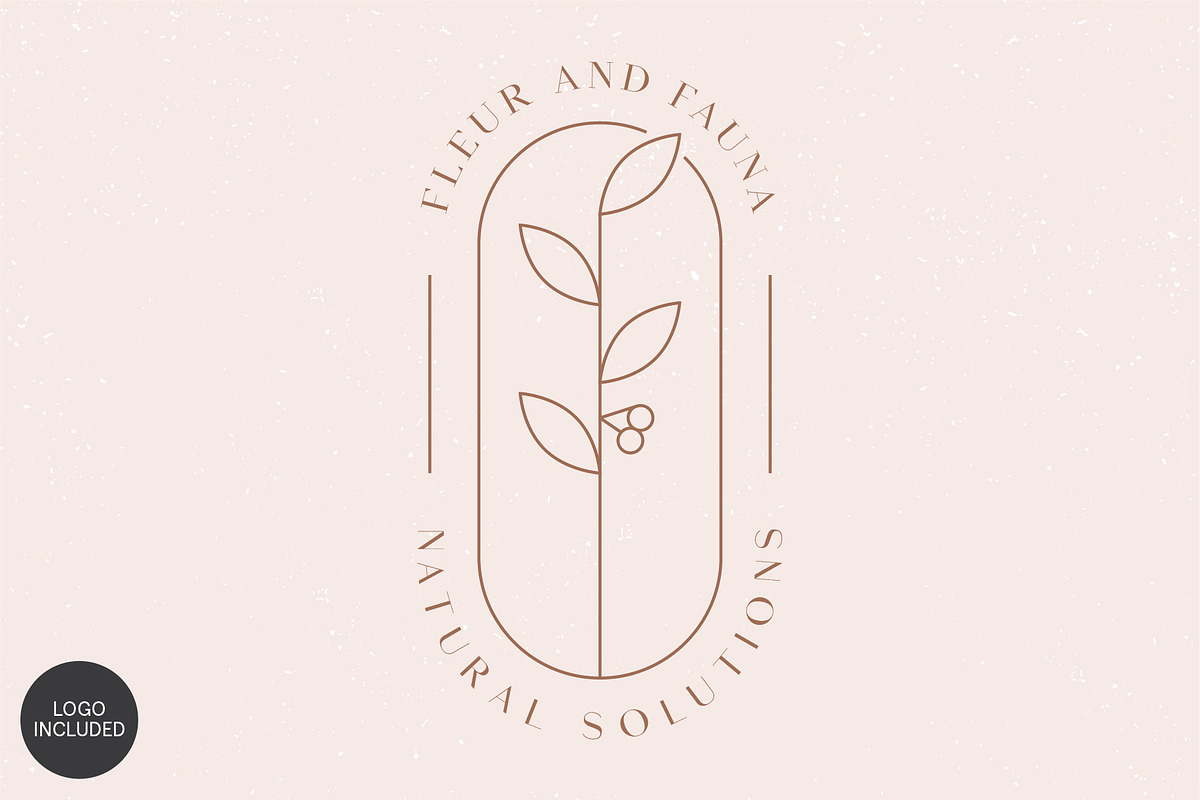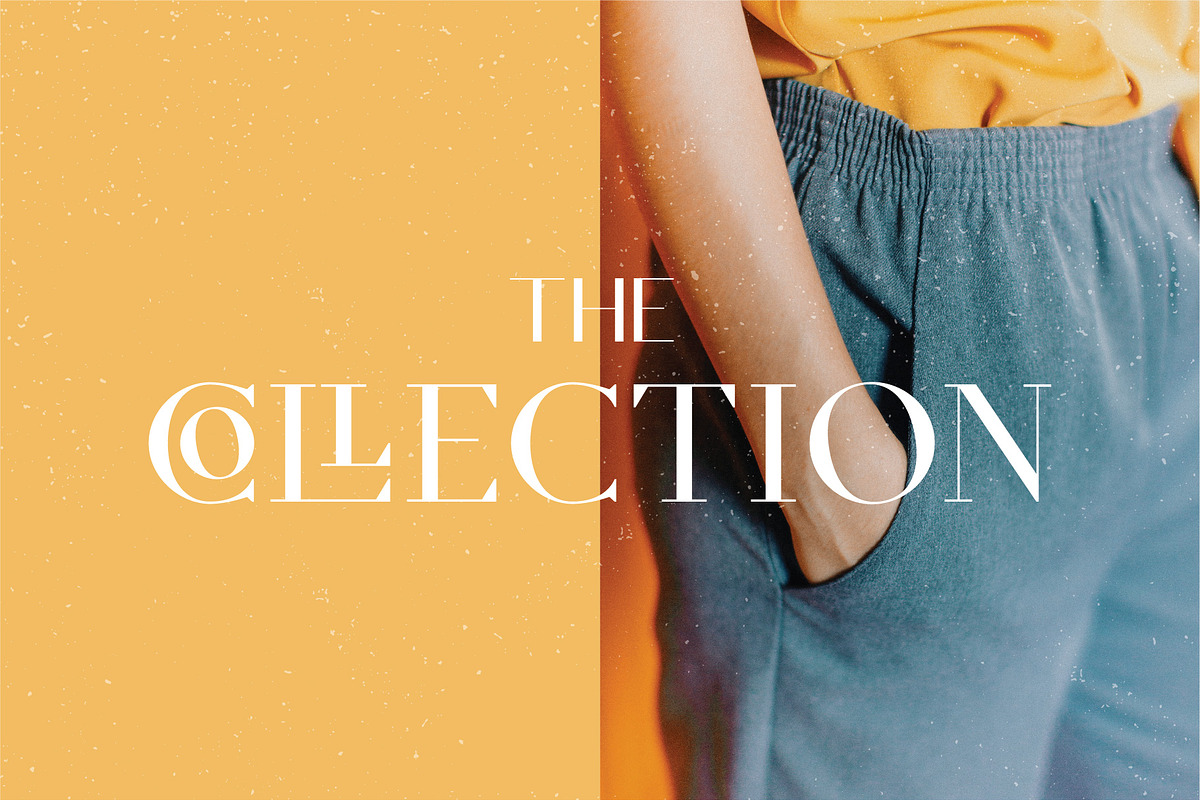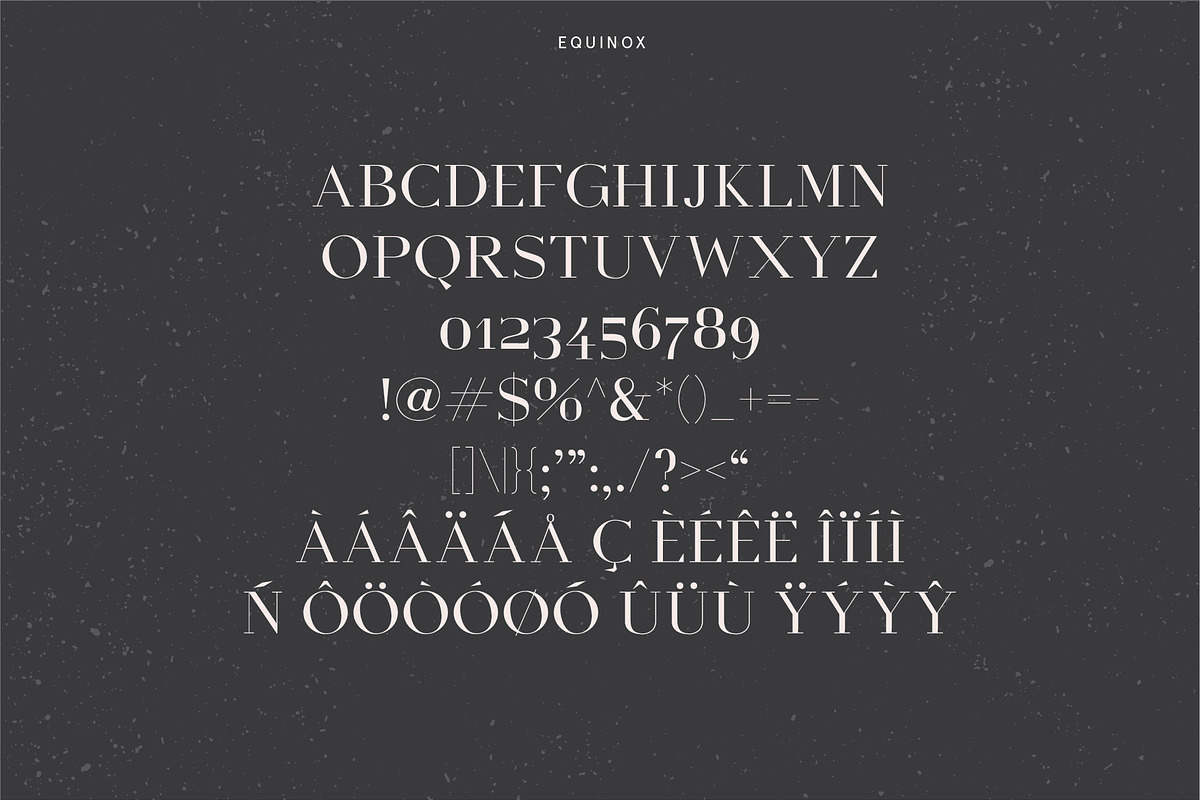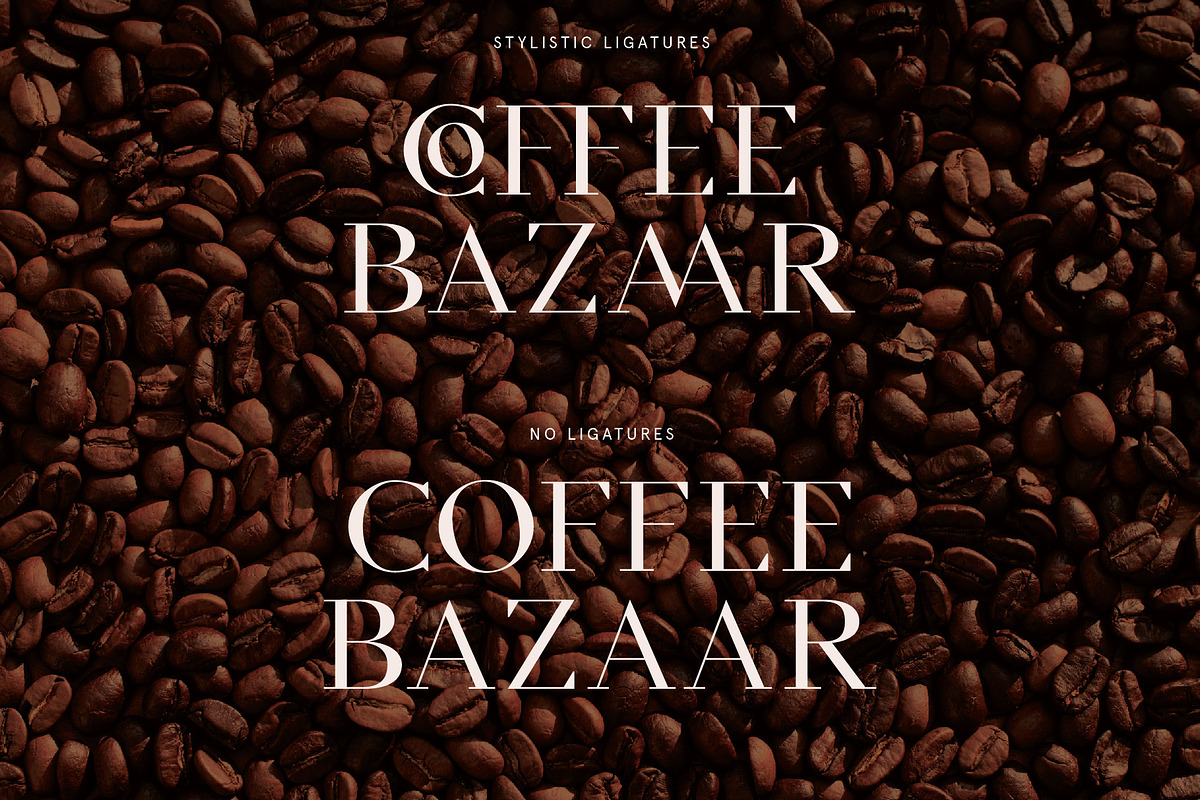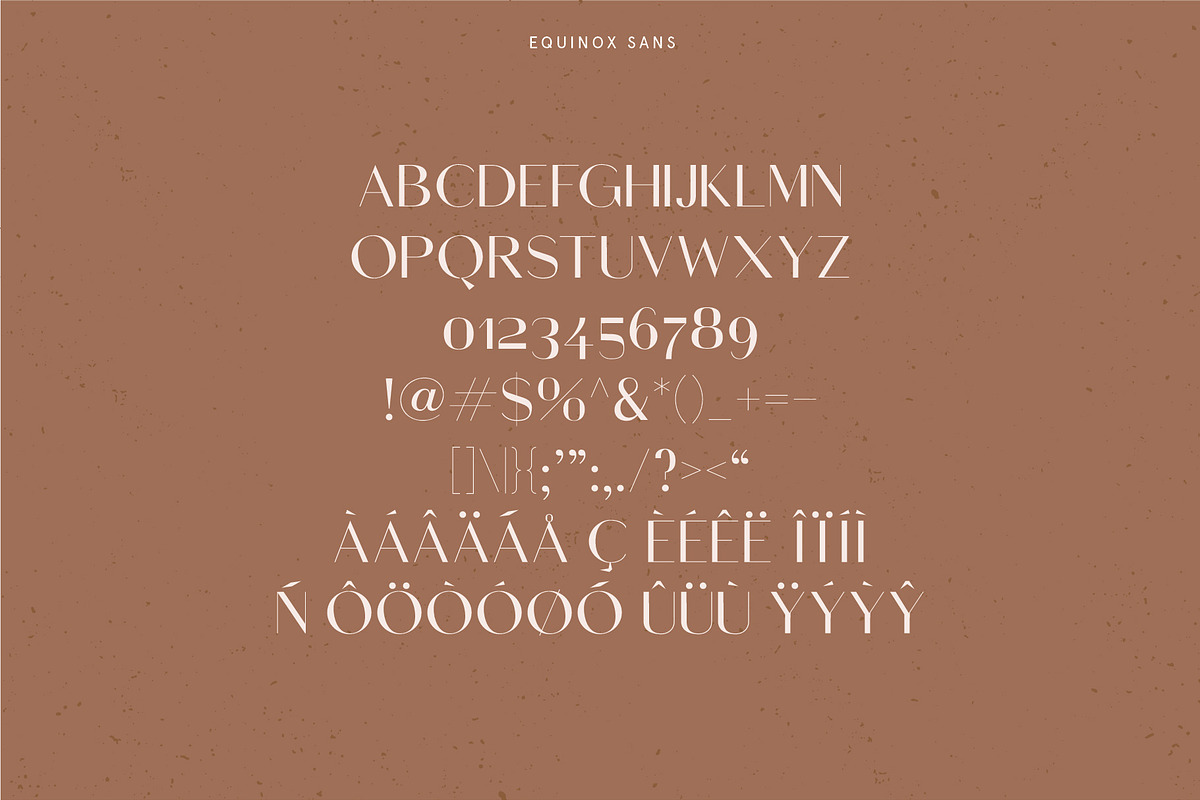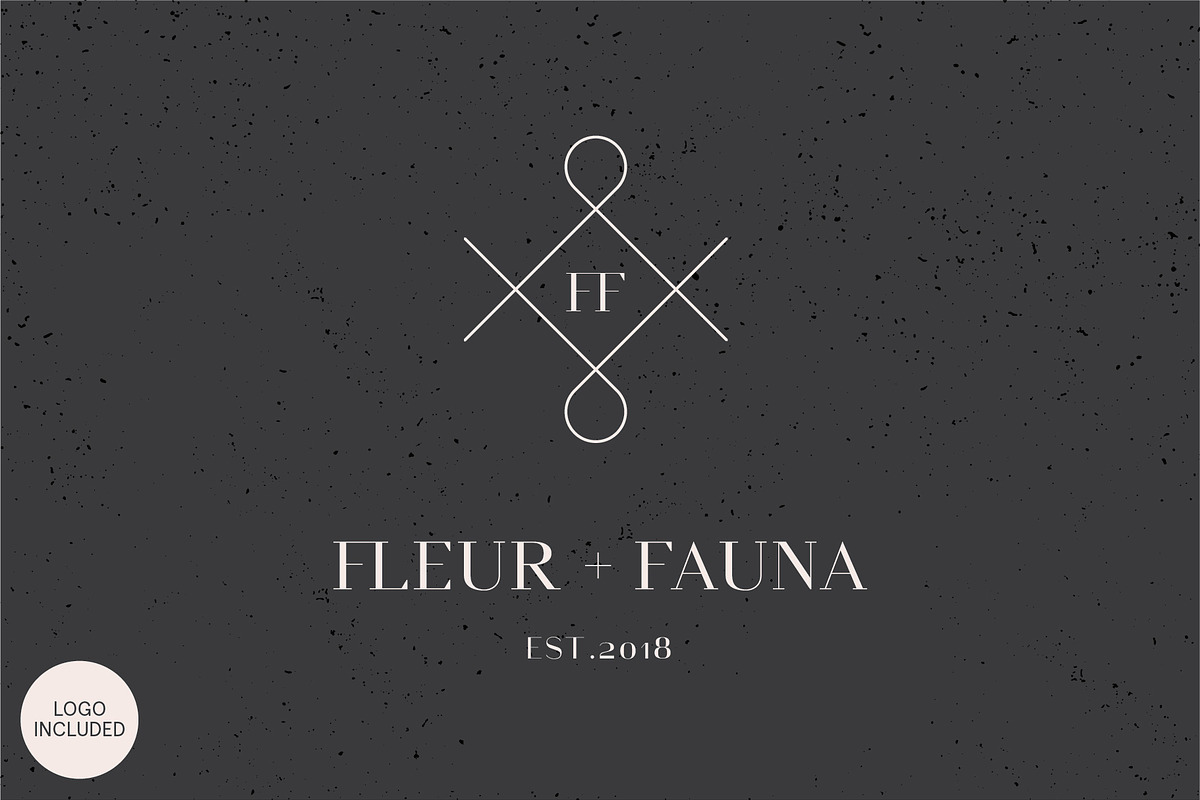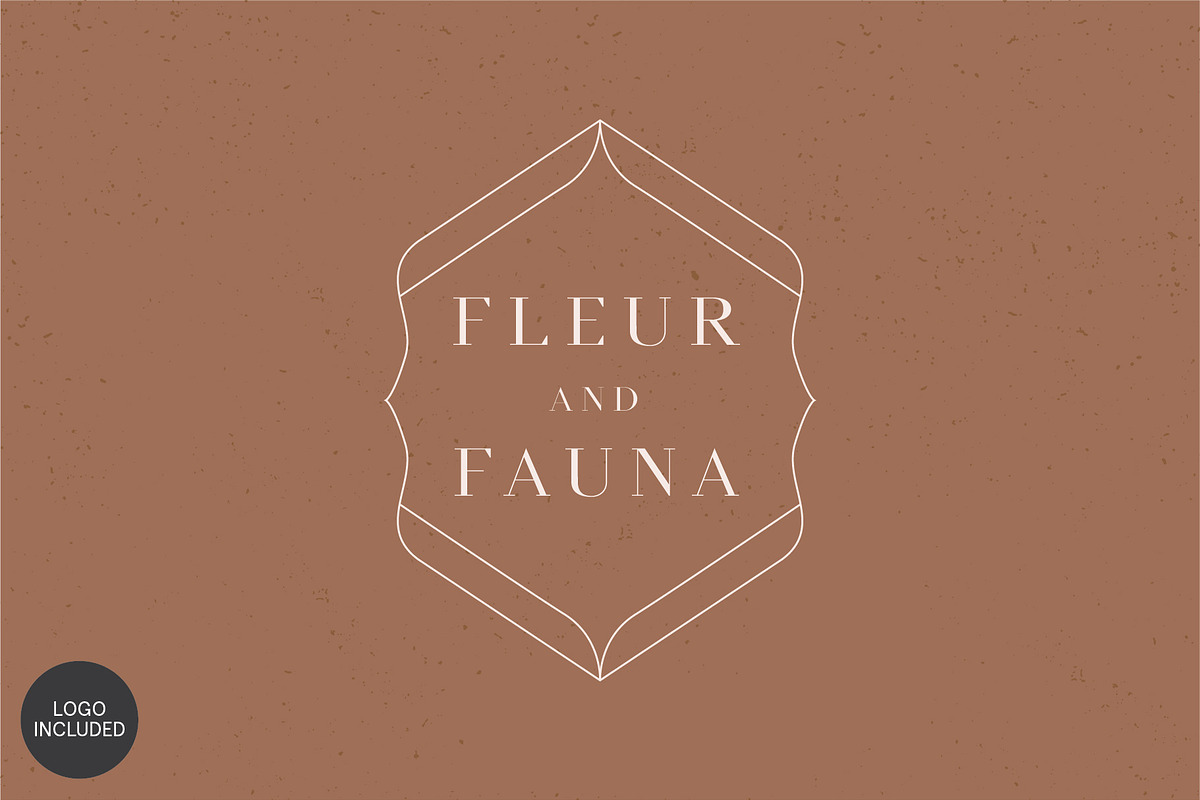
Equinox Stylish Font duo & logo Bundle
The Equinox font duo is a contemporary, unique sans serif and serif typeface combination. Both Equinox and Equinox sans-serif have been designed to work perfectly together across logos, magazine mastheads, brand typefaces and even body copy.
2 oft fonts with letters numbers, punctuation, multi-language support and stylistic ligatures.
- Also included are 6 fully editable modern, minimal and feminine logos paired with these typefaces for you to use in any way you wish.
- Equinox Regular
- Equinox Sans